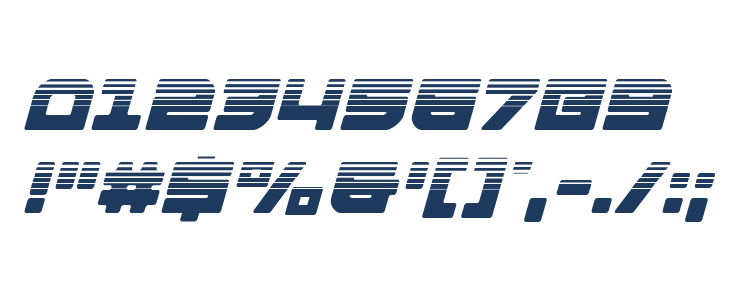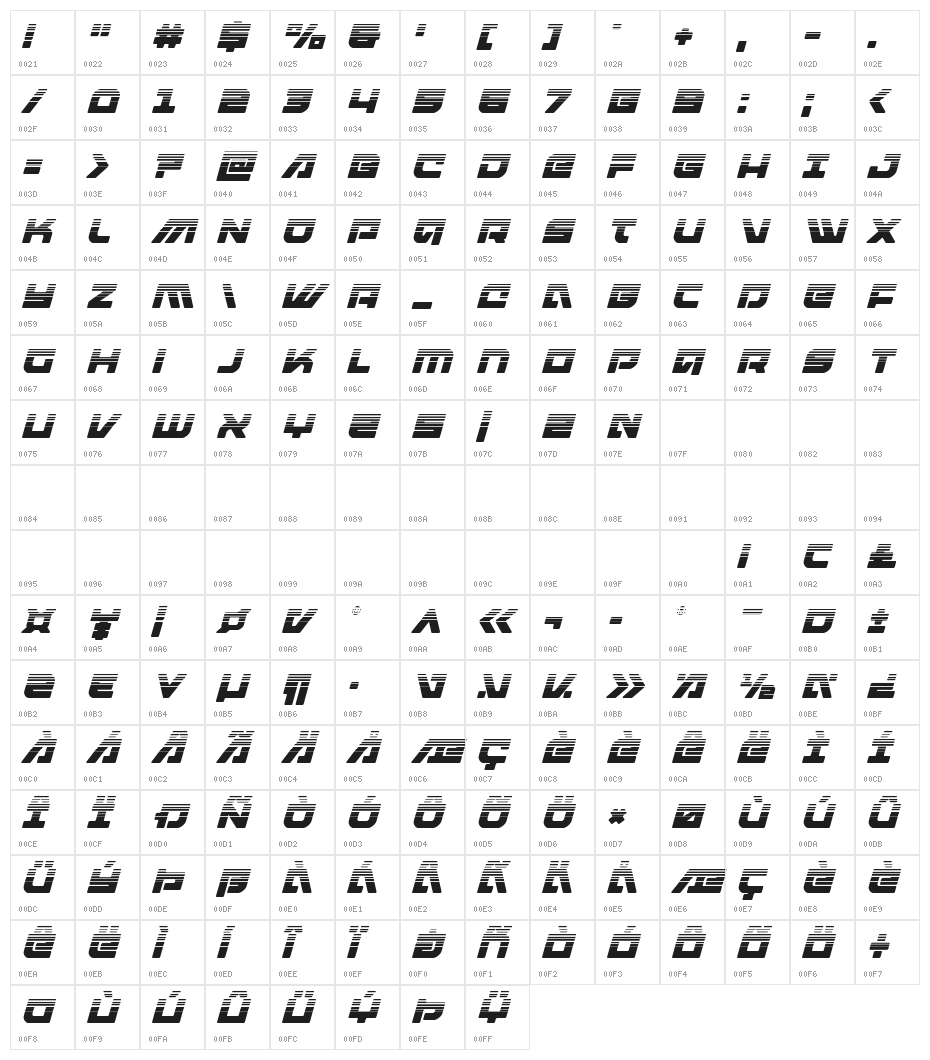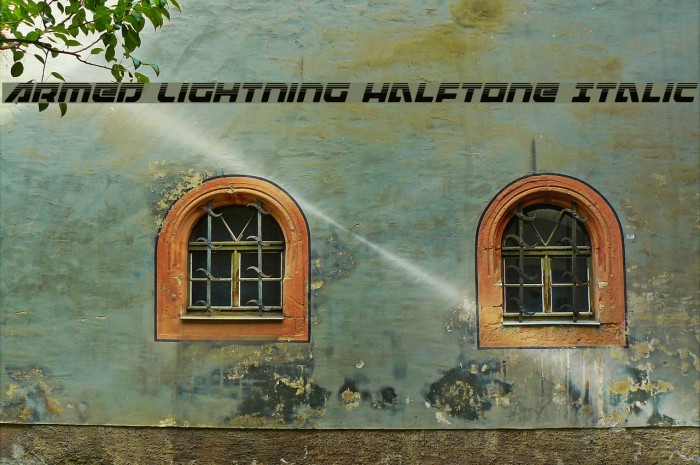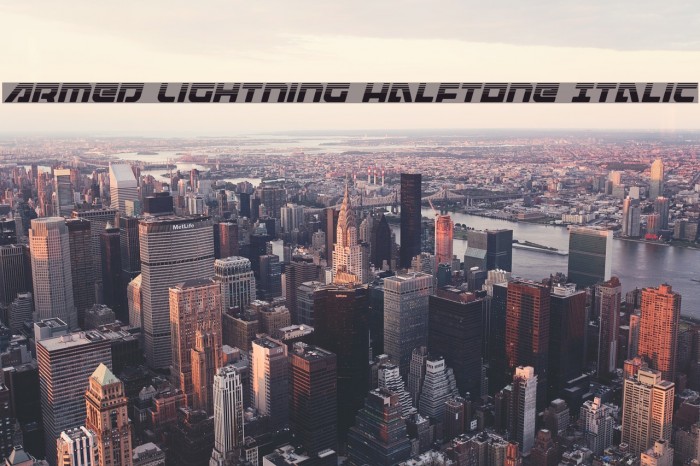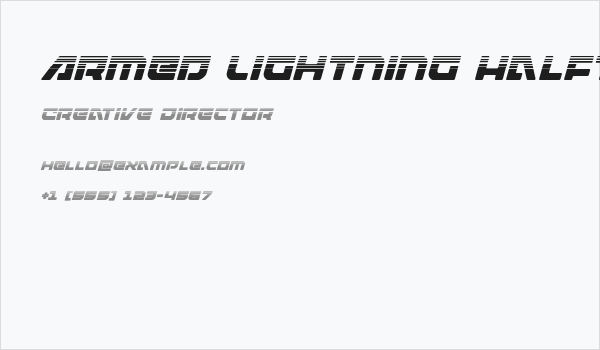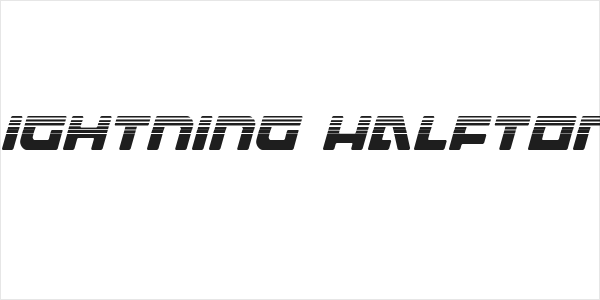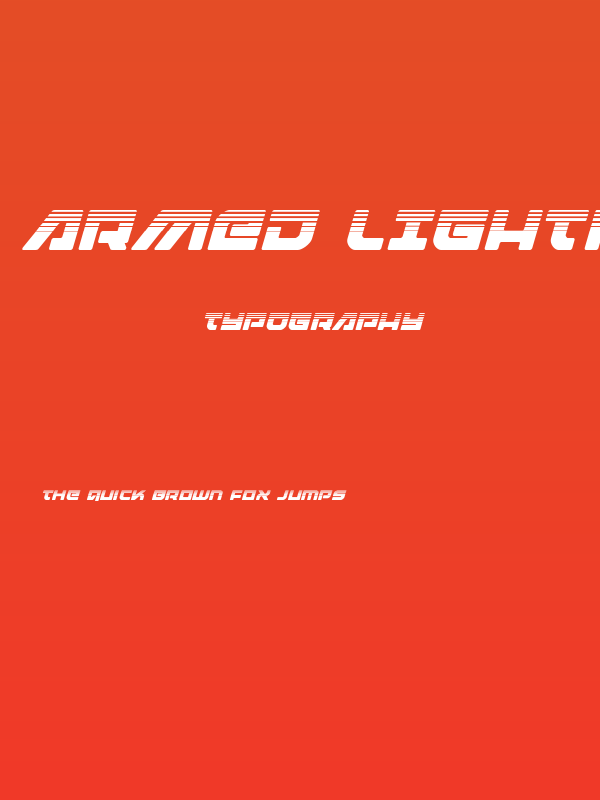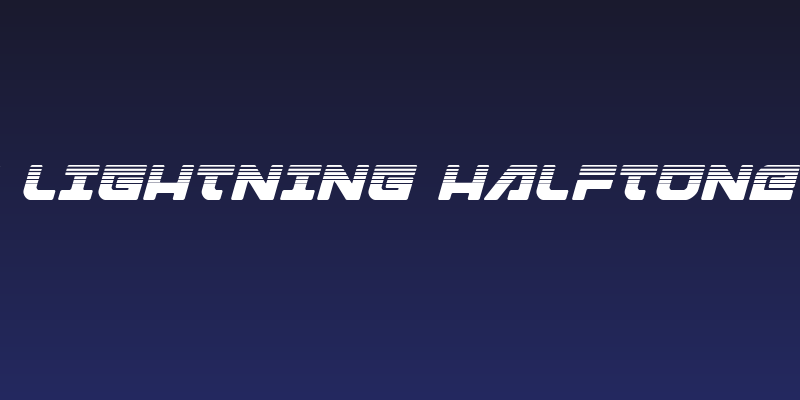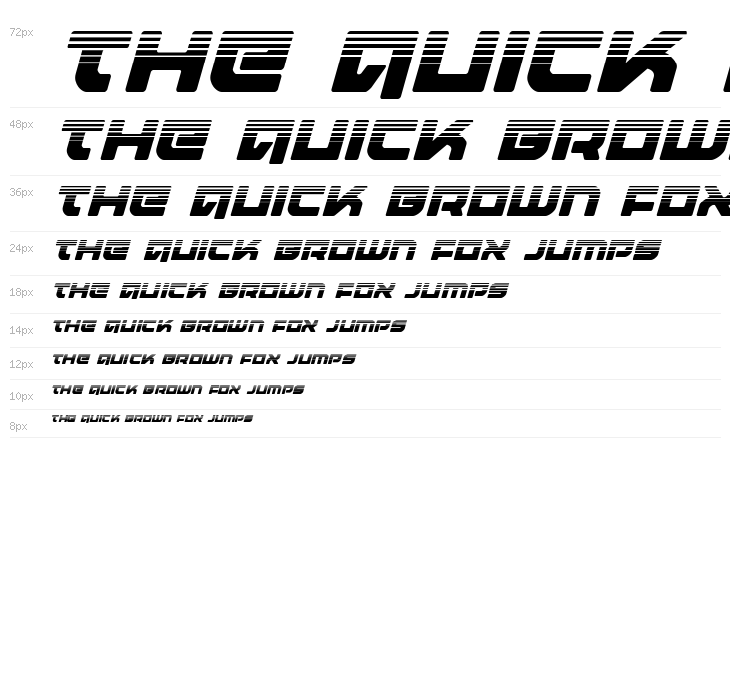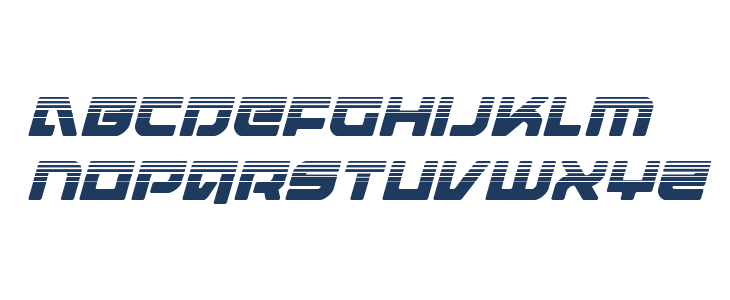
Armed Lightning Halftone Italic Font
Armed Lightning Halftone Italic Description
This font features a dynamic and futuristic design with a halftone effect that gives it a sense of movement and energy. The characters are italicized, adding to the sense of speed and modernity. Each letter is composed of bold, angular lines with a distinctive striped pattern that creates a lightning-like appearance. The uppercase and lowercase letters maintain a consistent style, while the numbers and special characters integrate seamlessly into the overall design. The font's unique style makes it stand out, ideal for projects that require a bold and eye-catching aesthetic.